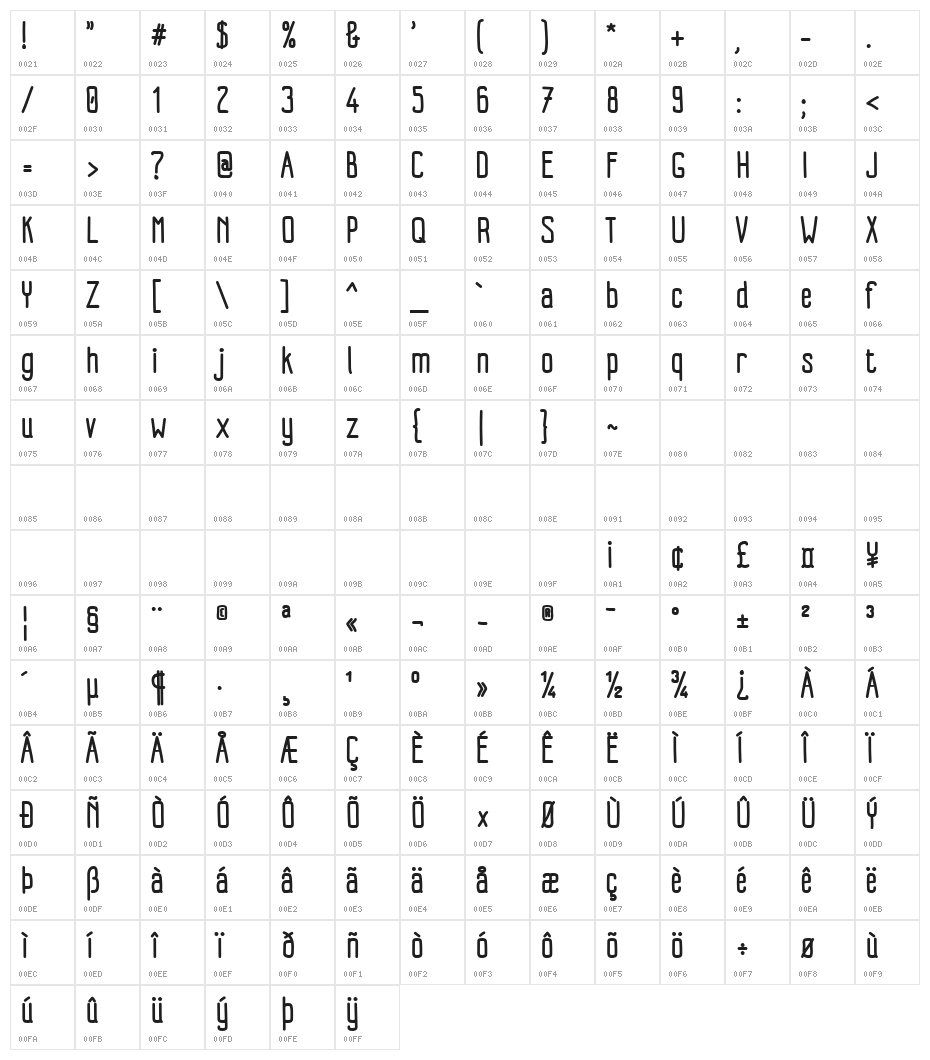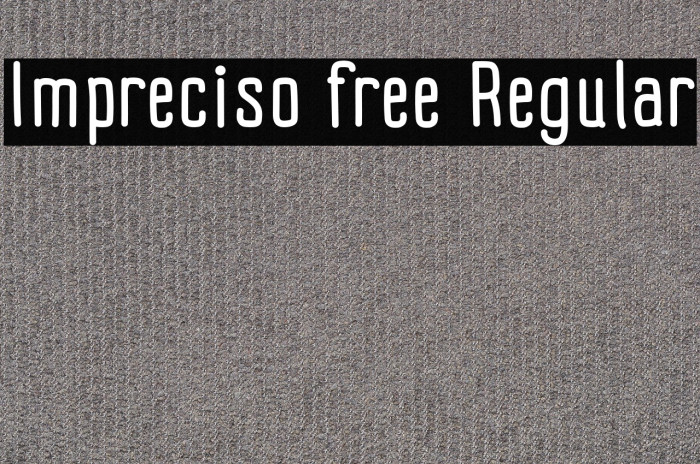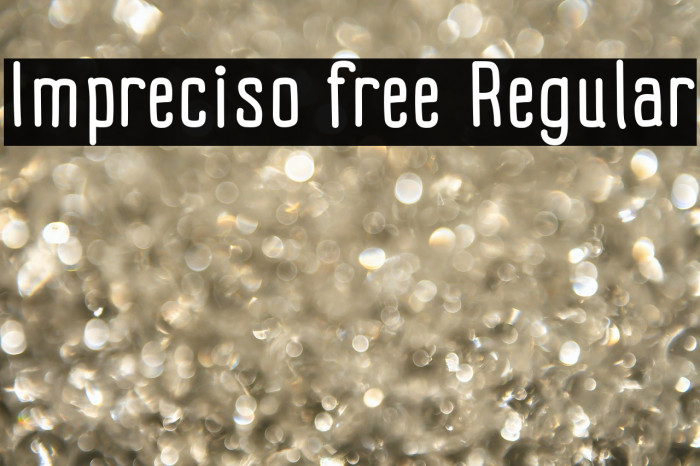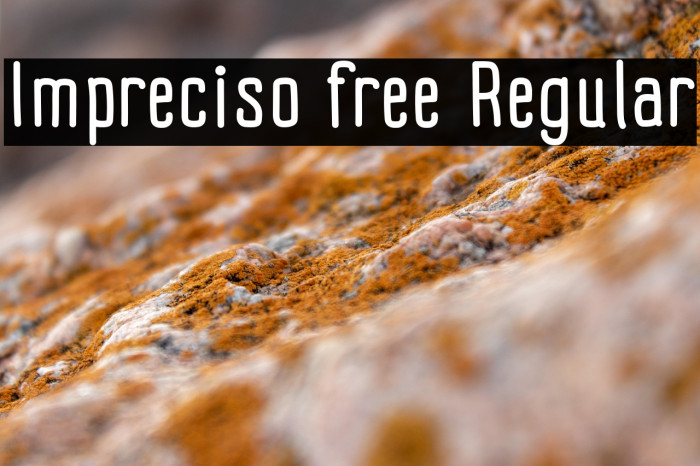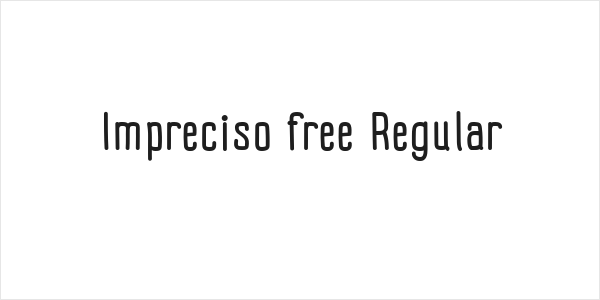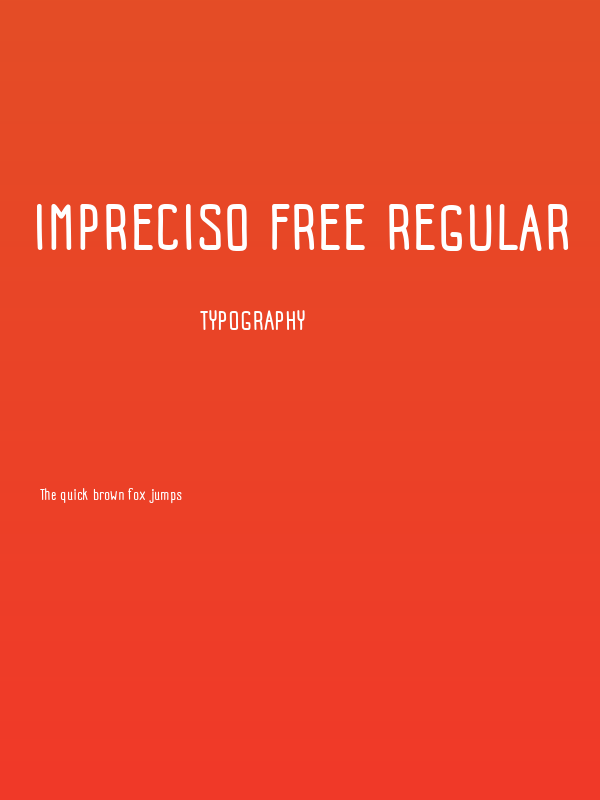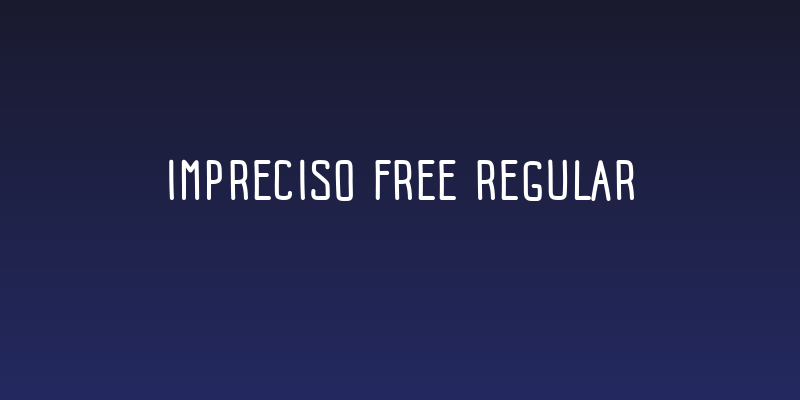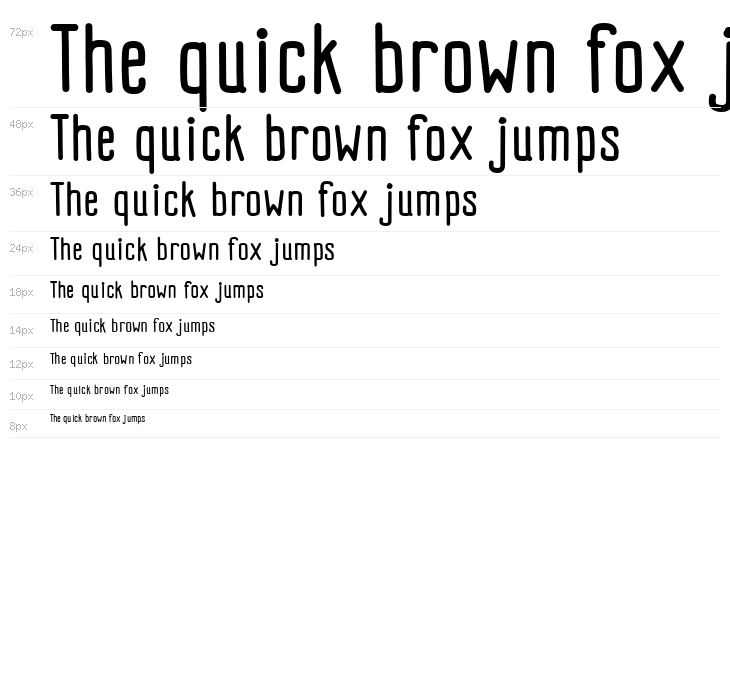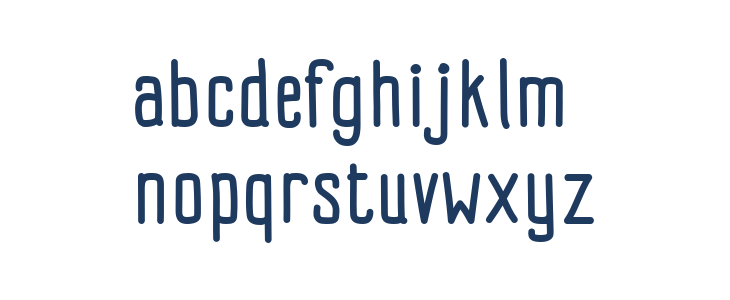
Impreciso free Regular Font
Impreciso free Regular Description
This font features a playful and informal style with a handwritten appearance. The characters are slightly elongated with rounded edges, giving it a friendly and approachable look. The uppercase and lowercase letters maintain a consistent height, while the numbers and special characters blend seamlessly with the overall design. The strokes are uniform in thickness, contributing to a clean and cohesive aesthetic. This font is versatile, suitable for projects that require a casual and personal touch.
| Use Case | Headlines, Informal text, Branding |
| Proposed Projects | Ideal for greeting cards, children's books, casual branding, and social media graphics. |